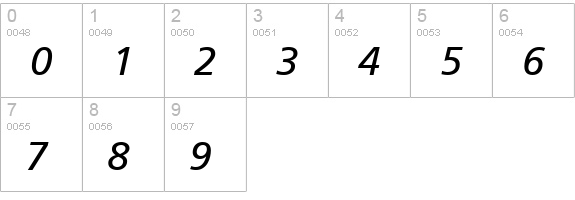
Palma SSi Italic is a distinctive, italic variant in the Palma typeface family \xE2\x80\x94 well suited to design and typography projects.
Palma SSi Italic font is an exquisite typeface that exudes elegance and sophistication. Its sleek and slanted design adds a touch of flair and uniqueness to any project or design. With its slanted strokes and graceful curves, this font is perfect for conveying a sense of modernity and style. Palma SSi Italic font is a versatile typeface that can be used in a variety of contexts, whether it's for branding, advertising, or graphic design. Its distinctive italic style adds a touch of dynamism and energy to any text, making it stand out and capture attention. One of the best things about Palma SSi Italic font is that it is freely available to download at FontsMarket.com. This means that you can easily access and use this font without any cost or restrictions. Whether you're a professional designer or a hobbyist, you can freely incorporate this font into your projects and create stunning visuals. The high-quality craftsmanship of Palma SSi Italic font is evident in its precise details and smooth curves. Every letter has been meticulously designed to ensure legibility and readability, even at smaller sizes. This makes it a reliable choice for both print and digital applications. Palma SSi Italic font is suitable for a wide range of projects, from logos and headlines to body text and invitations. It adds a touch of sophistication and elegance to any design, making it a go-to choice for those seeking a refined and polished look. In conclusion, Palma SSi Italic font is a versatile and stylish typeface that is freely available to download at FontsMarket.com. Its slanted design, precise details, and smooth curves make it a perfect choice for conveying elegance and sophistication in various design projects. Whether you're a professional or a beginner, this font will surely elevate your designs to new heights.